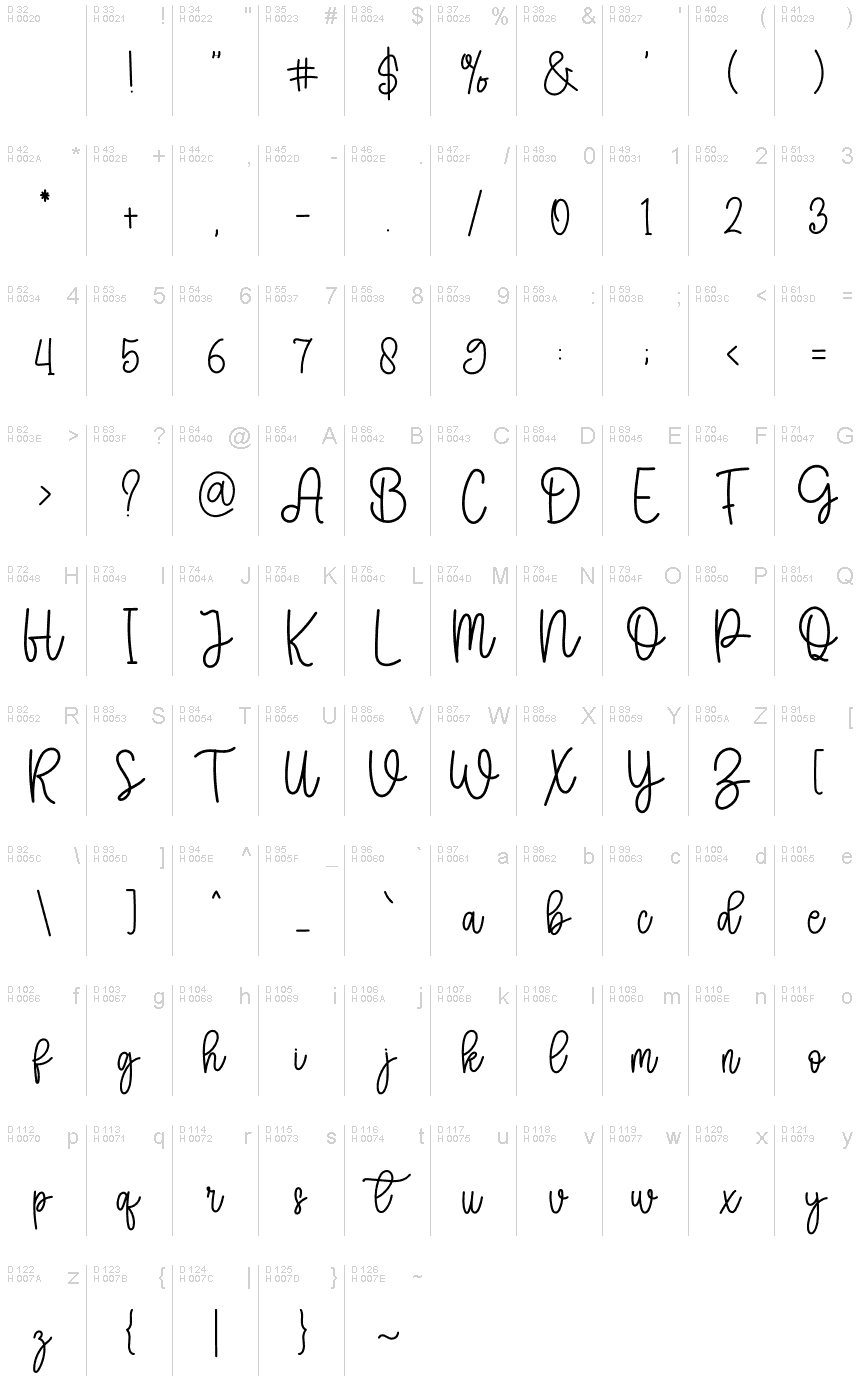
Writing Wonderful
Writing Wonderful, a delightful creation by FreshtypeINK, is a whimsical handwritten font that exudes elegance and charm. With its light weight, this font adds a touch of sophistication to any project. Perfect for wedding invitations, greeting cards, or brand logos seeking a personal touch. It effortlessly captures attention with its flowing curves and graceful strokes. Whether you're designing a sophisticated event poster or crafting an exquisite menu, Writing Wonderful will infuse your projects with an air of refined creativity. Let your imagination run wild as this enchanting typeface brings your ideas to life.